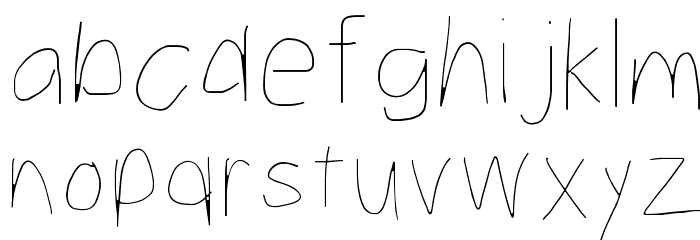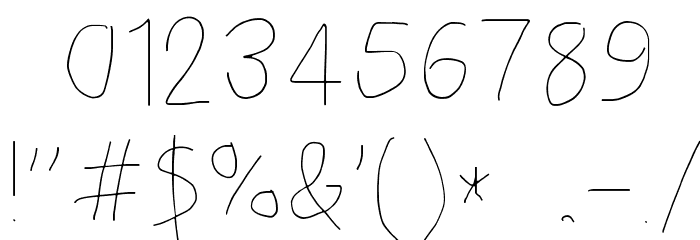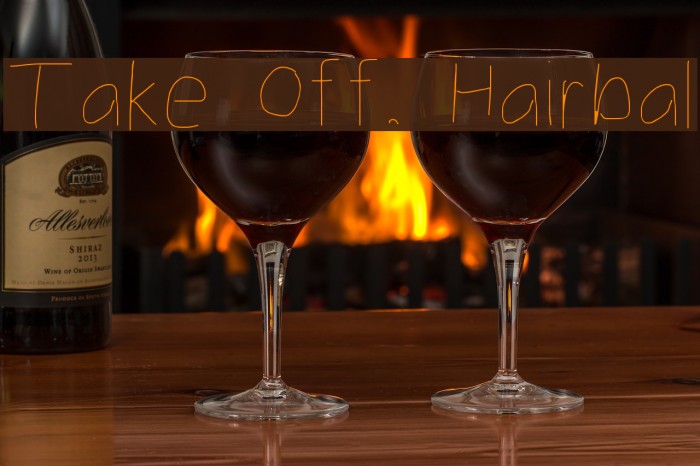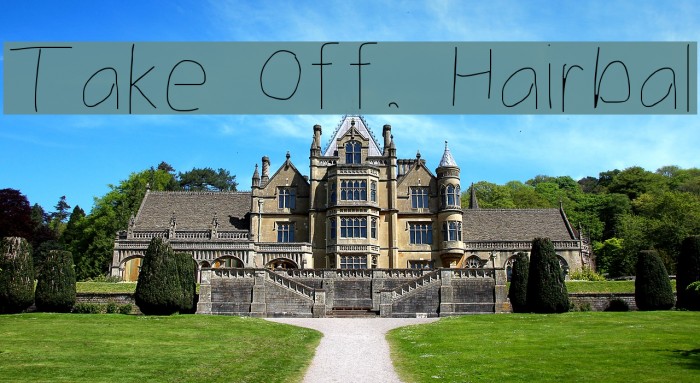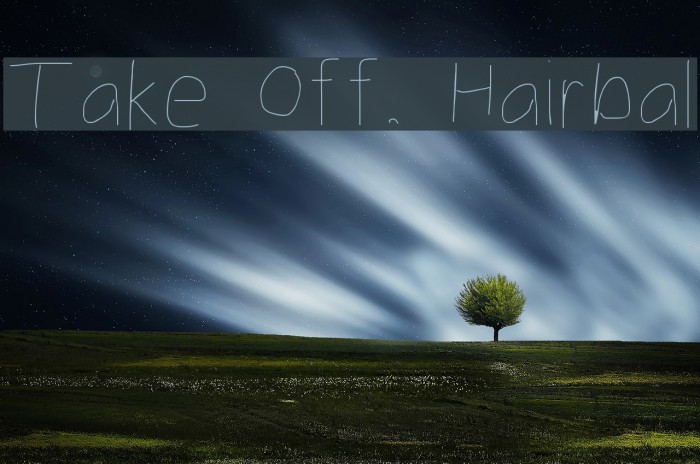
Take Off, Hairball Font
This font features a playful and casual handwritten style, characterized by its thin, uneven strokes and slightly irregular letterforms. The uppercase and lowercase letters maintain a consistent height, giving it a uniform appearance despite its informal nature. The numbers and special characters follow the same whimsical design, making it suitable for projects that require a personal touch. The overall look is light and airy, with a sense of spontaneity and creativity. Its simplicity and charm make it ideal for informal communications, children's materials, or any project that benefits from a friendly and approachable aesthetic.
A playful, handwritten font with thin, uneven strokes and a casual style.
- Proposed Projects: Ideal for greeting cards, children's books, personal notes, and informal branding.
- Overall Style: Casual
- Use Case: Headlines, Informal text, Creative projects